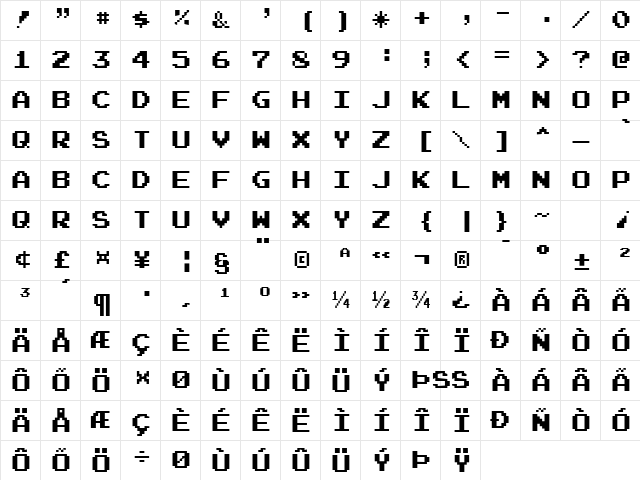
Joystix Monospace
Design Context for Joystix Typeface
Joystix uses fixed-width spacing throughout, giving it the structured, systematic character associated with coding environments and technical documentation.
Well-suited to data-driven dashboards, coding tutorials, and any design that wants to reference the world of programming.
Pro Tip: Use Joystix with slightly increased line-height for extended reading — fixed-width spacing can feel dense in longer passages without extra breathing room.